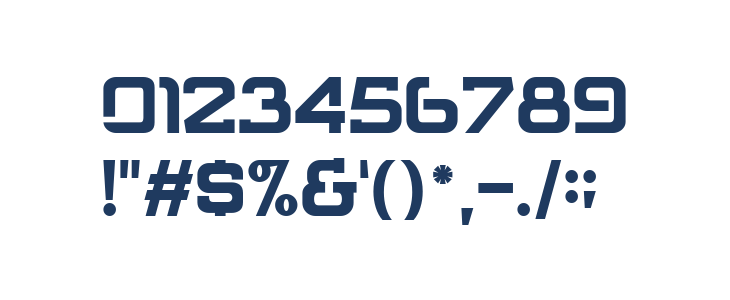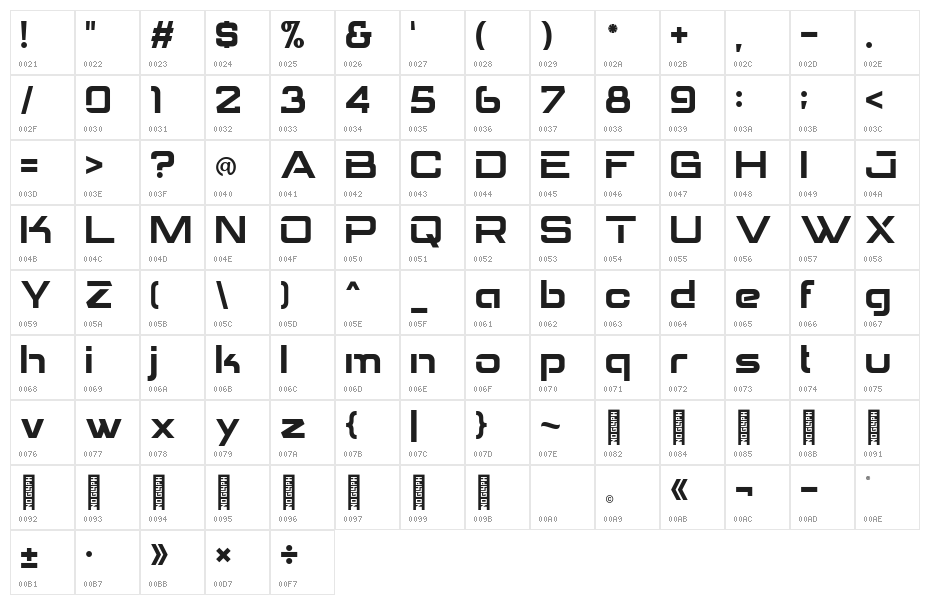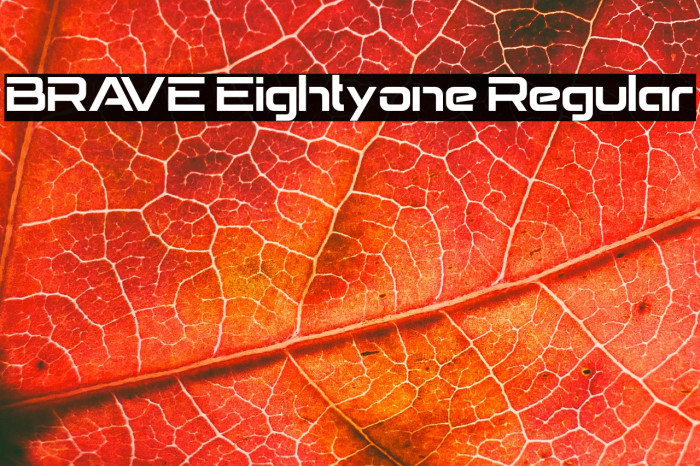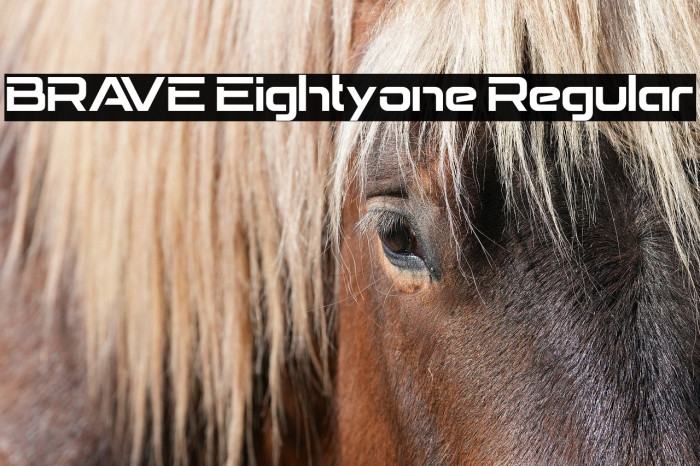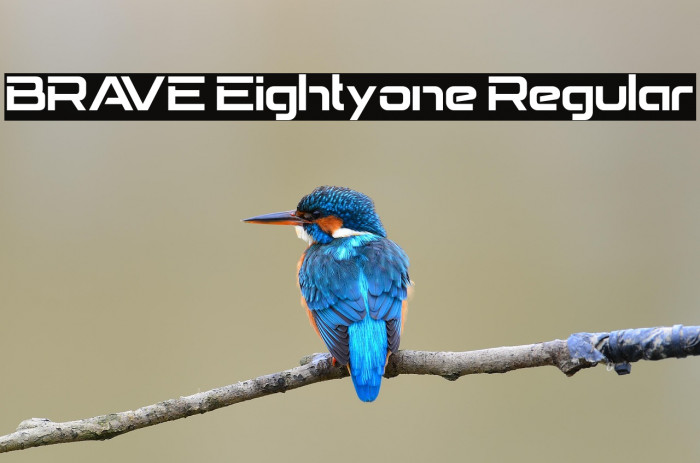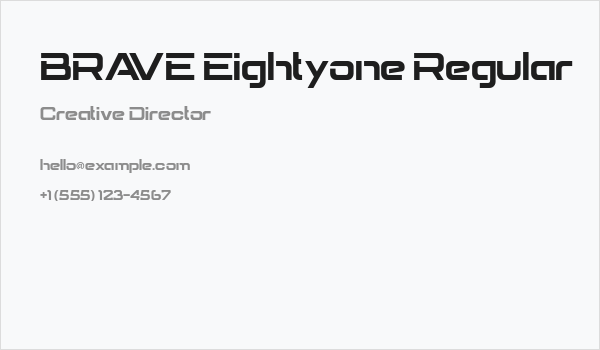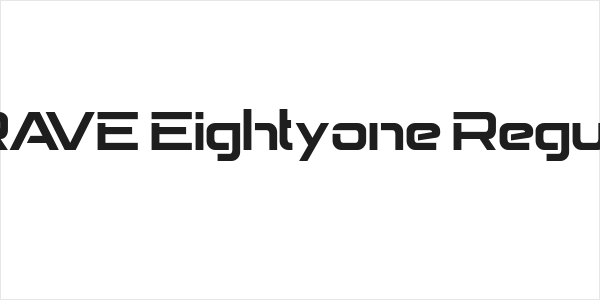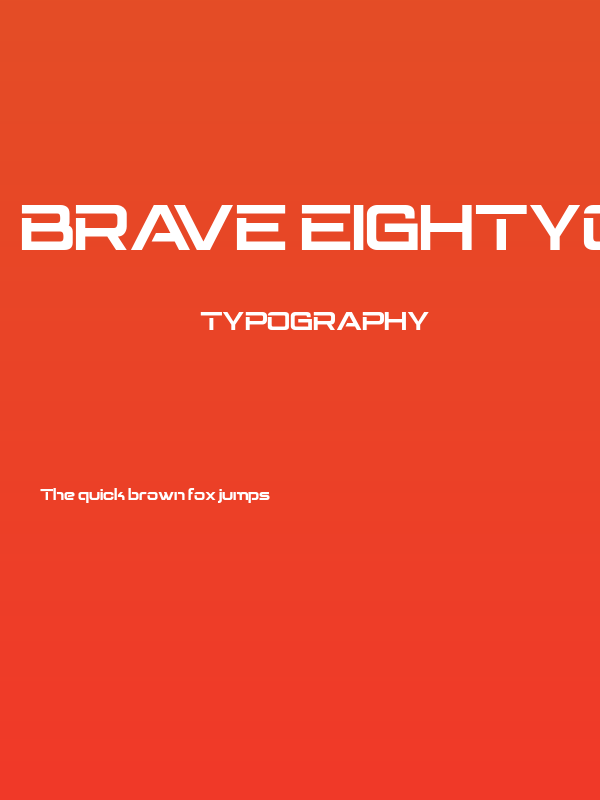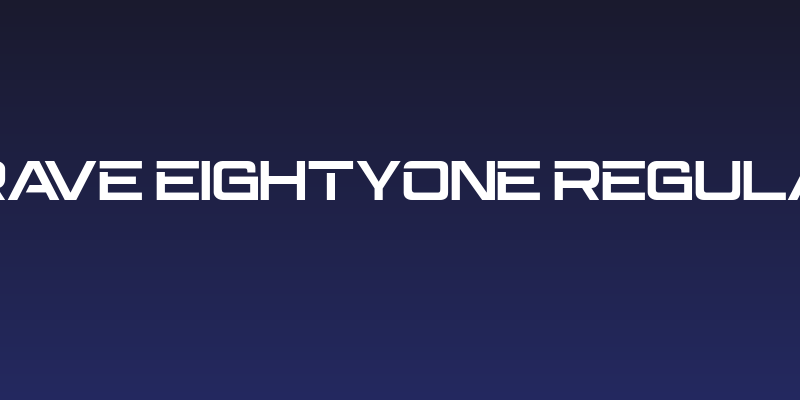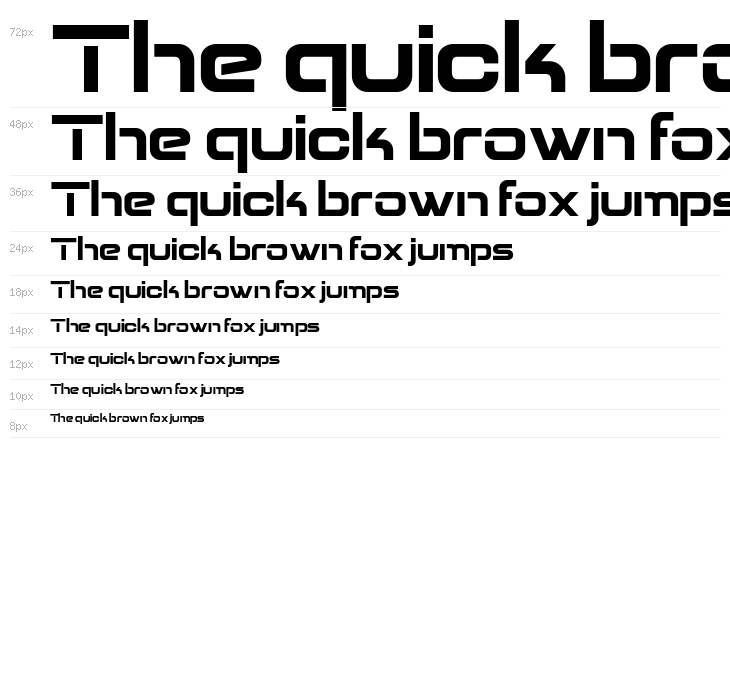
BRAVE Eightyone Regular Font
BRAVE Eightyone Regular Description
This font exhibits a modern and futuristic design with a geometric structure. The uppercase letters are bold and angular, featuring sharp edges and a consistent stroke width that conveys a sense of strength and stability. The lowercase letters maintain the geometric theme, with rounded elements that add a touch of softness to the overall design. The numerals are clear and legible, designed to match the boldness of the alphabet characters. Special characters are crafted with the same attention to detail, ensuring uniformity across the entire typeface. This font is ideal for projects that require a contemporary and assertive look.
| Proposed Projects | Ideal for branding, technology-related projects, futuristic designs, and headlines. |